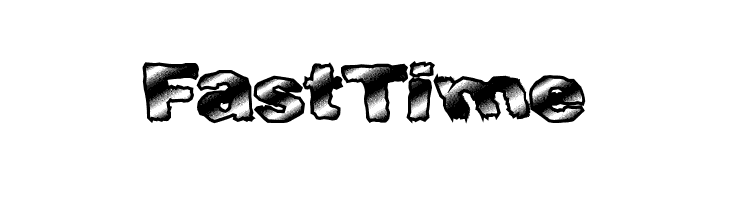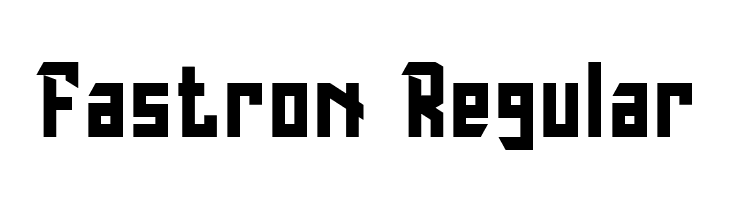
A playful, handwritten font with tall, narrow letters and a casual style.
( Fonts by Daniel Gauthier )
A bold, jagged font with high contrast and thorn-like edges, perfect for dramatic designs.
A bold, futuristic font with geometric shapes and a tech-inspired design.
A bold, futuristic font with geometric shapes and strong lines.
( Pixel Sagas - Neale and Shayna Davidson - www.pixelsagas.com )
A bold, geometric font with a futuristic and modern aesthetic.
( Pixel Sagas - Neale and Shayna Davidson - www.pixelsagas.com )
A bold, italicized font with a futuristic, geometric style.
A futuristic, geometric font with hollow letterforms and bold outlines.
A futuristic, geometric, hollow italic font with sharp, angular edges.
A bold, futuristic italic font with geometric shapes and sharp angles.
A bold, italicized font with a futuristic and dynamic design.
A whimsical font made from fly illustrations, perfect for creative projects.
A playful, casual handwritten font with fluid, connected strokes.
A playful, handwritten font with smooth, flowing lines and a casual style.
A modern, narrow font with bold vertical strokes and a sleek, decorative style.
( Fonts by EvasUniqueFonts )
A whimsical script font with flowing, interconnected letters and a playful aesthetic.
( Fonts by TarmSaft Font Factory - http://www.aska.nu/tarmsaft/ )
A dot-based font with a digital, modern aesthetic, ideal for tech-themed designs.
( Fonts by TarmSaft Font Factory - http://www.aska.nu/tarmsaft/ )
A modern, pixelated font composed of small circles, offering a playful and decorative style.
( Fonts by TarmSaft Font Factory - http://www.aska.nu/tarmsaft/ )
A playful, bubble-like font with rounded, dot-formed characters.
( Fonts by Mickey Rossi - www.subflux.com )
A bold, modern font with geometric lines and strong presence.
A decorative font featuring bird illustrations for each character.
( Fonts by Dieter Schumacher )
Bold, geometric font with a collegiate style and strong, angular lines.
( Fonts by Dieter Schumacher )
A bold, outlined font with a geometric and modern style.
( Fonts by Dieter Schumacher )
A bold, geometric outline font with a collegiate sports team vibe.
( Fonts by Dieter Schumacher )
A bold, geometric outline font with a modern and futuristic style.
A dynamic and expressive font with sharp, angular strokes and flowing curves.
( Fonts by DrawPerfect )
A playful, handwritten font with smooth, rounded edges and a casual style.
( Blahfonts - www.gwydir.demon.co.uk/giles/ )